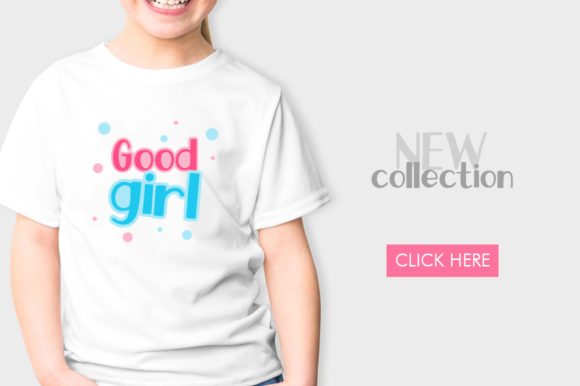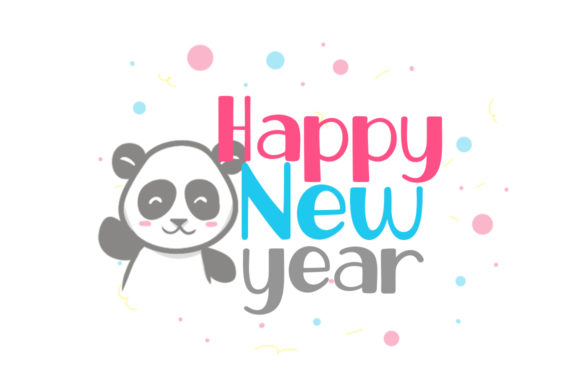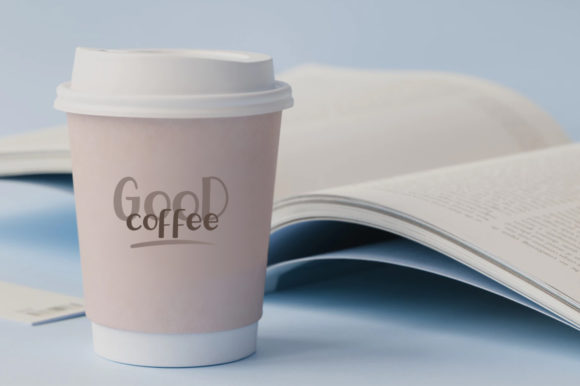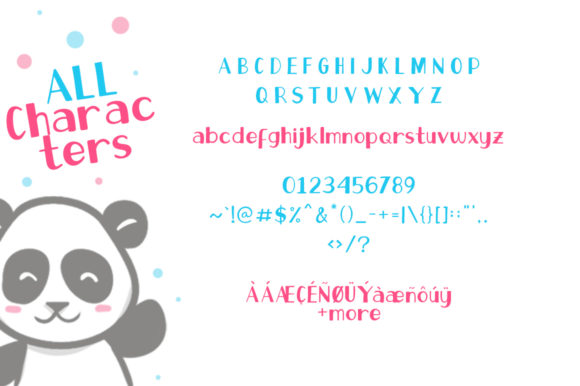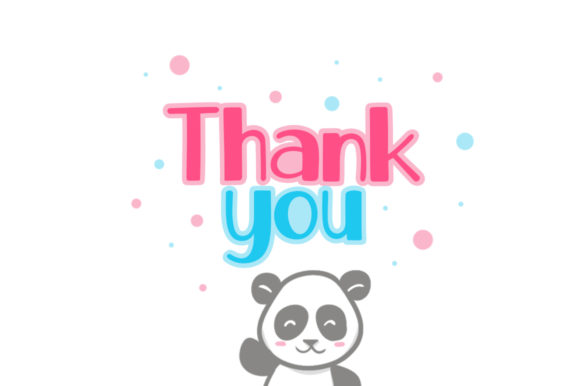
Introducing Go Panda Font: A Fun Display Typeface for Creative Projects
Are you tired of using the same old fonts for your design projects? Look no further than the Go Panda Font, a fun and playful display typeface that’s perfect for adding a touch of personality to your work. With its awesome characters in 2 different styles – regular and bold – this font is sure to take your designs to the next level.
What Makes Go Panda Font So Special?
The Go Panda Font is a versatile typeface that’s designed to make a statement. Its unique and playful characters are perfect for creating eye-catching designs that stand out from the crowd. Whether you’re working on a name card, poster, logo, magazine cover, or large-scale artwork, this font is sure to add a touch of fun and whimsy to your project.
Key Features of Go Panda Font
- 2 Different Styles: The Go Panda Font comes in two different styles: regular and bold. This allows you to add variety and depth to your designs, and create visual interest by mixing and matching the two styles.
- Awesome Characters: The font includes a range of awesome characters that are perfect for creating unique and eye-catching designs. From bold and chunky letters to more delicate and intricate details, the Go Panda Font has everything you need to bring your designs to life.
- Perfect for Creative Projects: Whether you’re a designer, crafter, or artist, the Go Panda Font is perfect for a wide range of creative projects. Its playful and fun style makes it ideal for projects that require a bit of personality and flair.
Uses for Go Panda Font
The Go Panda Font is a versatile typeface that can be used for a wide range of projects, including:
- Name Cards: Add a touch of personality to your business cards or name cards with the Go Panda Font.
- Posters: Create eye-catching posters that stand out from the crowd with this fun and playful font.
- Logos: Use the Go Panda Font to create a unique and memorable logo for your brand or business.
- Magazine Covers: Add a touch of whimsy and personality to your magazine covers with this fun and playful font.
- Large-Scale Artwork: The Go Panda Font is perfect for large-scale artwork, such as billboards, signage, and more.
Tips for Using Go Panda Font
Here are a few tips for getting the most out of the Go Panda Font:
- Experiment with Different Styles: Don’t be afraid to experiment with different styles and combinations of the regular and bold fonts.
- Use it as a Headline Font: The Go Panda Font is perfect for use as a headline font, where its bold and playful style can really make an impact.
- Pair it with Other Fonts: Try pairing the Go Panda Font with other fonts to create a unique and interesting contrast.
The Go Panda Font is a fun and playful display typeface that’s perfect for adding a touch of personality to your design projects. With its awesome characters in 2 different styles, this font is sure to take your designs to the next level. Whether you’re a designer, crafter, or artist, the Go Panda Font is a versatile typeface that’s sure to inspire your creativity.